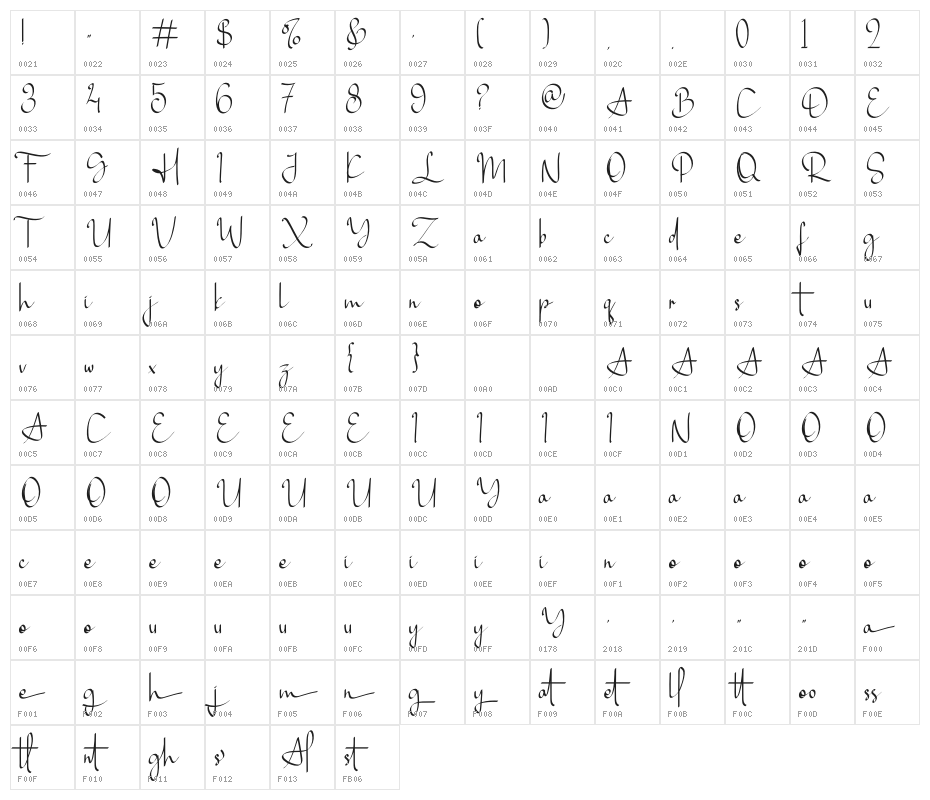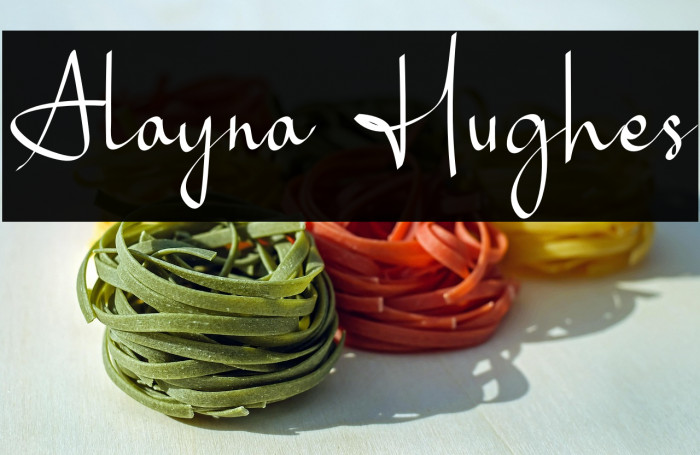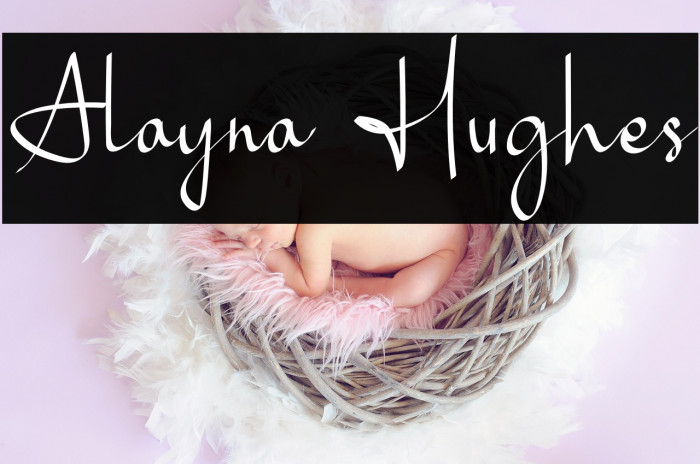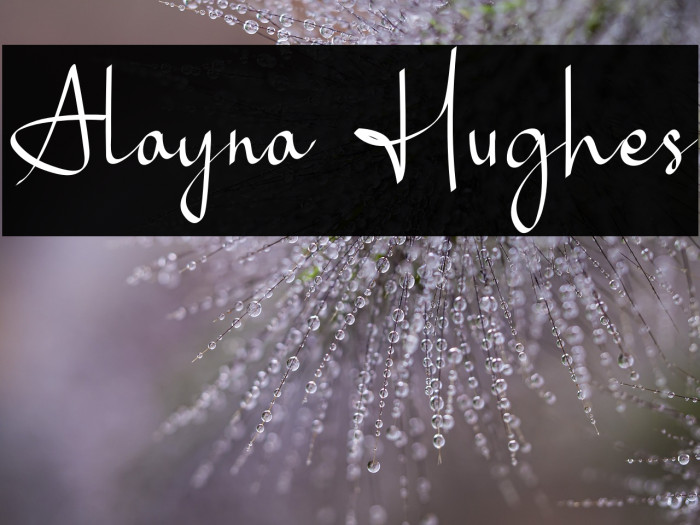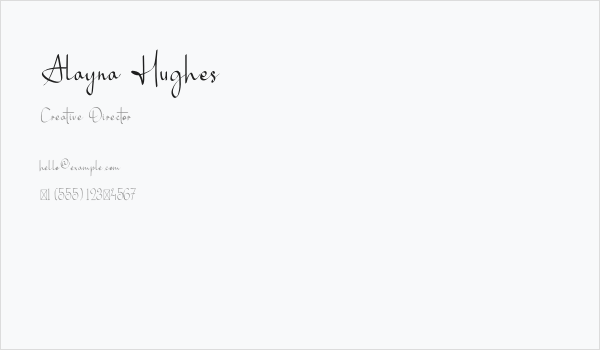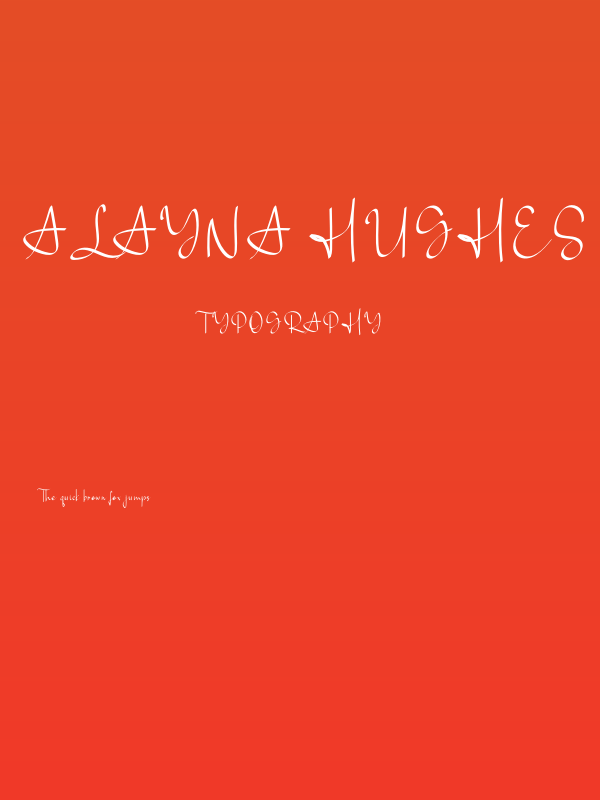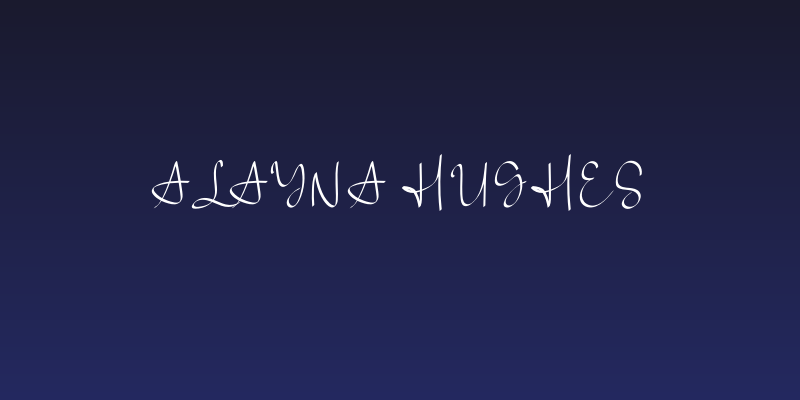
Alayna Hughes Font
Alayna Hughes Description
This font features a playful and elegant script style, characterized by its flowing, cursive letterforms. The uppercase letters are bold and expressive, with a slight slant that adds a dynamic feel. The lowercase letters maintain a consistent rhythm, with elongated ascenders and descenders that enhance its graceful appearance. The numerals are rounded and complement the overall aesthetic, while the special characters retain the whimsical quality of the script. This font's unique style makes it suitable for creative projects that require a touch of sophistication and charm.
| Overall Style | Elegant, Playful |
| Proposed Projects | Ideal for wedding invitations, greeting cards, branding projects, and elegant packaging designs. |